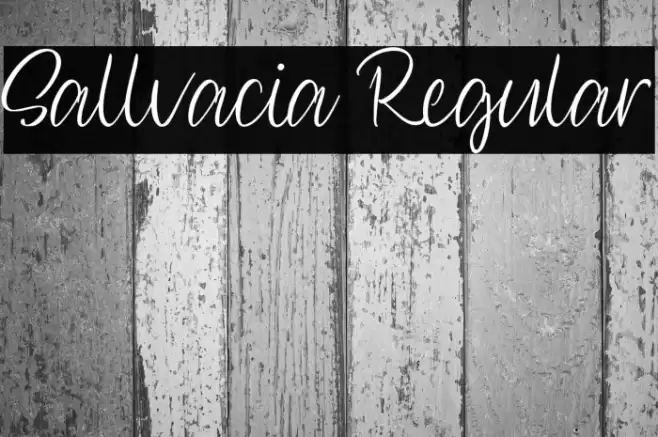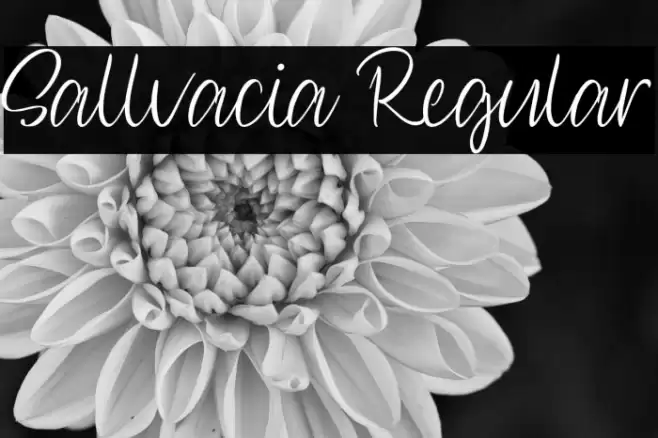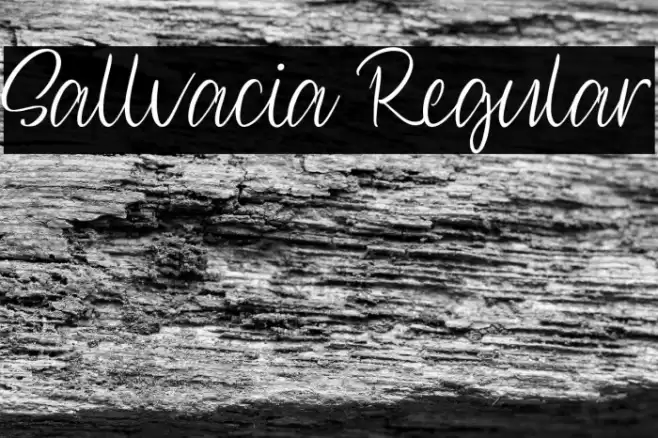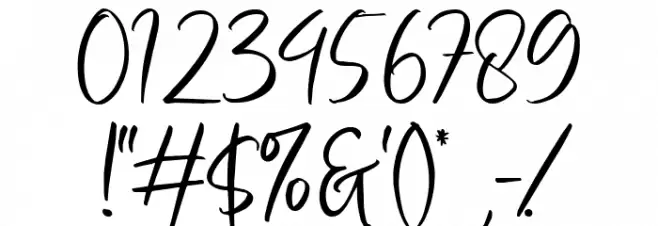
Sallvacia Regular Font
Sallvacia Regular Description
This font features a flowing, cursive style that exudes elegance and sophistication. The characters are connected with smooth, sweeping lines, giving it a handwritten appearance. The uppercase letters are slightly more formal, with a consistent height and gentle curves, while the lowercase letters maintain a casual, yet refined look. The numerals are clear and easy to read, with a slight slant that complements the overall script style. Special characters are designed with the same fluidity, ensuring a cohesive look across all text. This font is perfect for adding a personal touch to any project.
A flowing, cursive script font with elegant, connected characters from Regular fonts.
- Proposed Projects: Ideal for wedding invitations, greeting cards, personal branding, and elegant packaging.
- Overall Style: Elegant
- Use Case: Logos, Invitations, Personal Branding